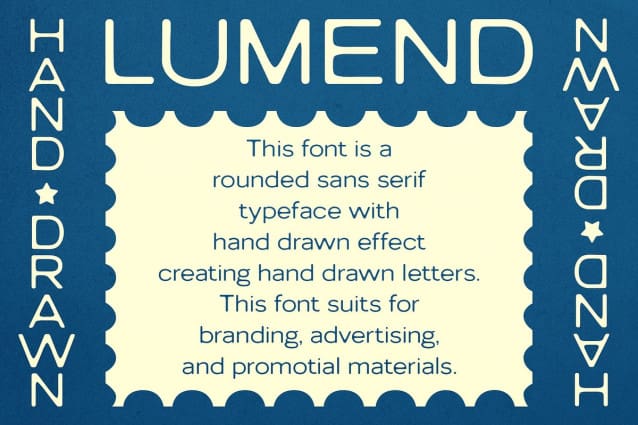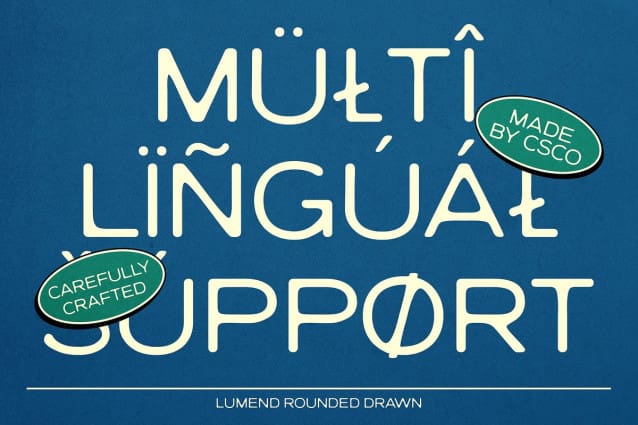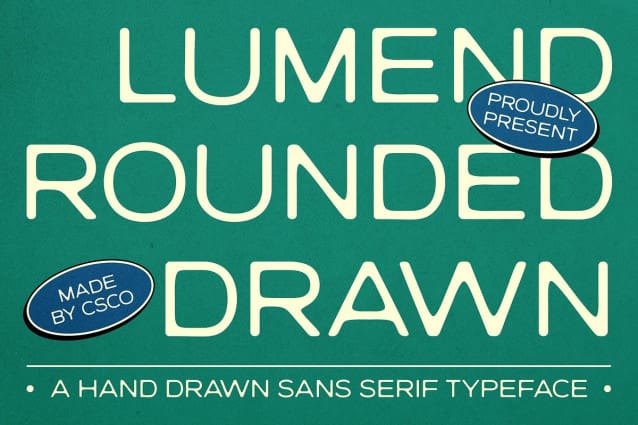
Lumend Rounded Drawn Font
Lumend Rounded Drawn Font. This font is a modern sans serif font that seamlessly blends minimalist design with rounded shapes and a unique drawn effect. This font combines clean, simple lines with soft, rounded edges to create a contemporary and approachable appearance.
The minimalist form of this rounded drawn font offers a sleek, efficient look, emphasizing clarity and modernity. The rounded edges enhance the font’s friendly and approachable nature, making it suitable for a wide range of design applications.
The drawn effect adds a distinctive hand-crafted texture, infusing the font with a personal and artisanal touch. This detail adds a creative flair, making this rounded drawn font stand out by blending modern elegance with a warm, unique character.
Ideal for both subtle and imaginative projects, this font is perfect for applications that require a blend of sophistication and individuality. Its elegant simplicity and creative texture make it an excellent choice for branding, editorial design, or any project where a clean yet distinctive look is desired.